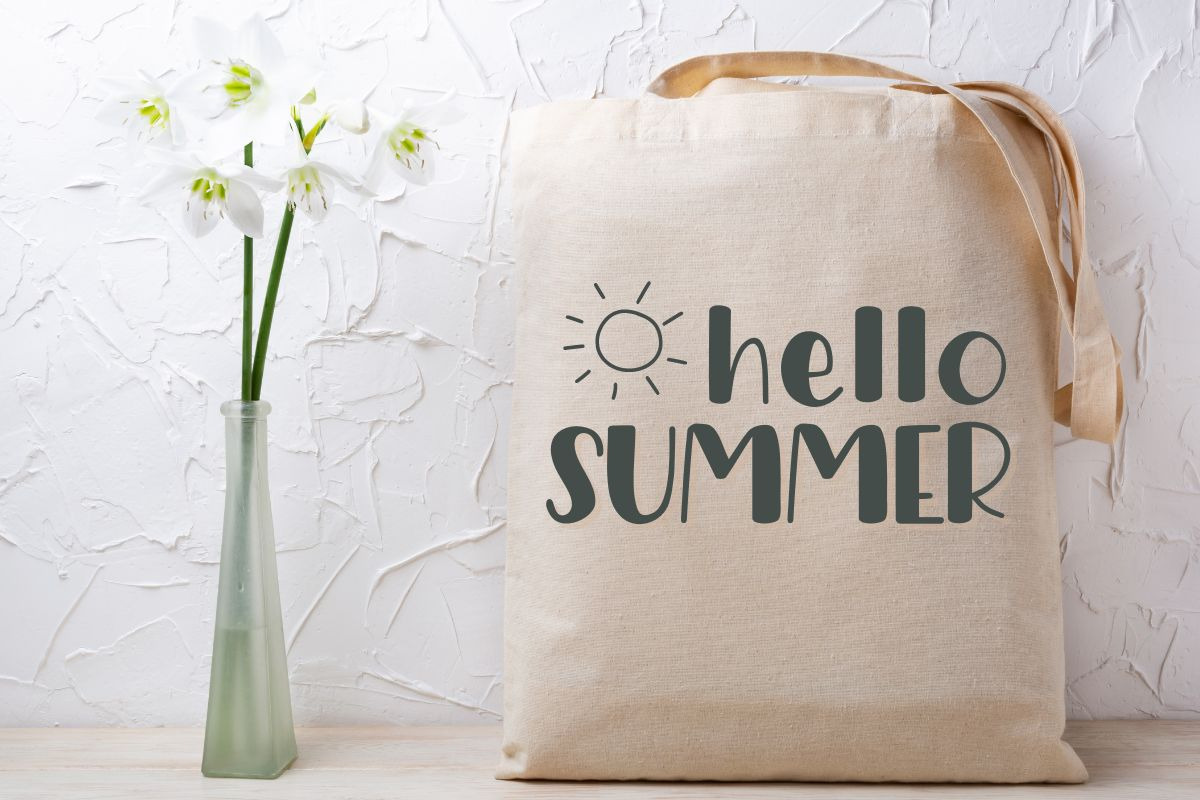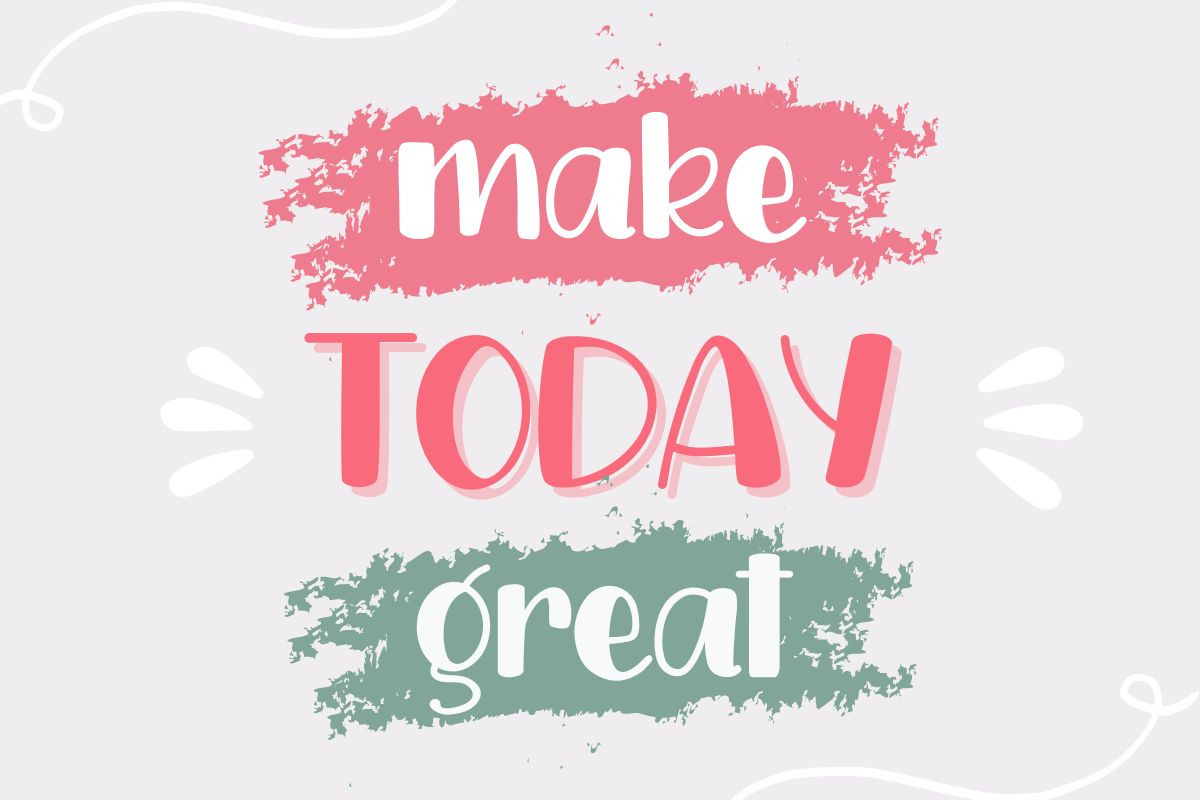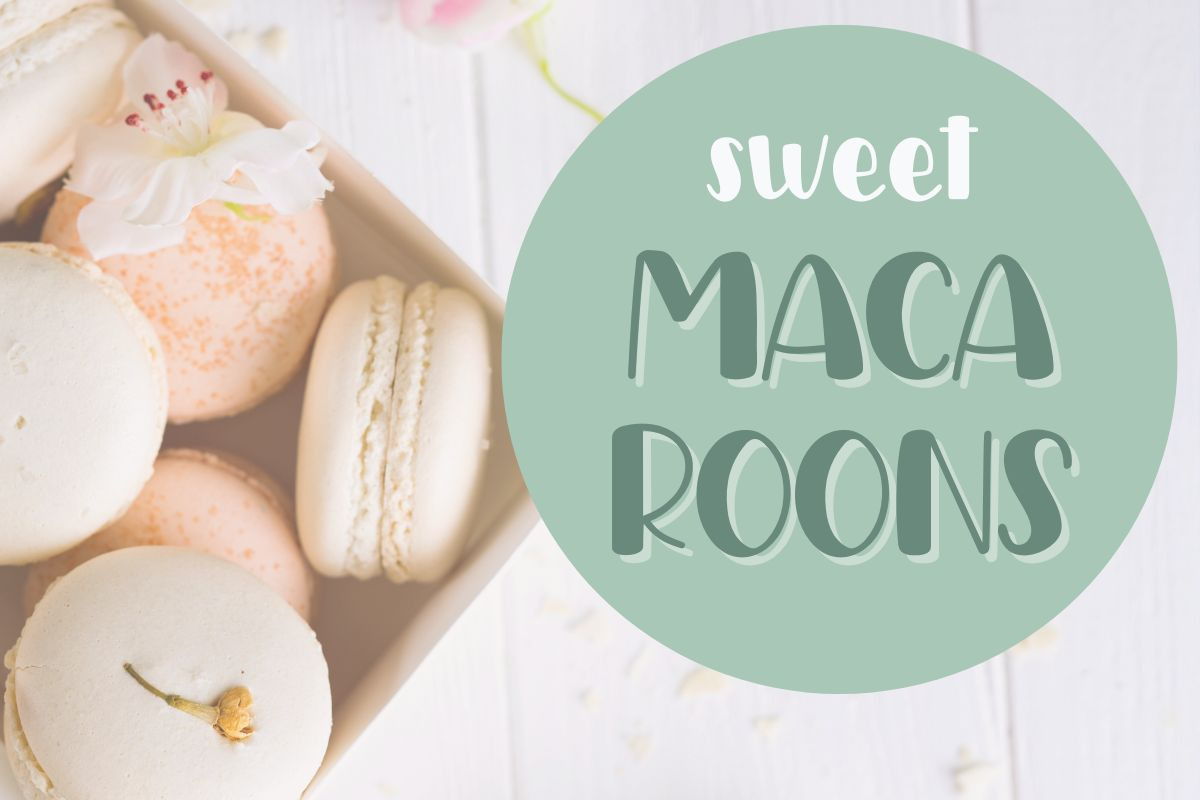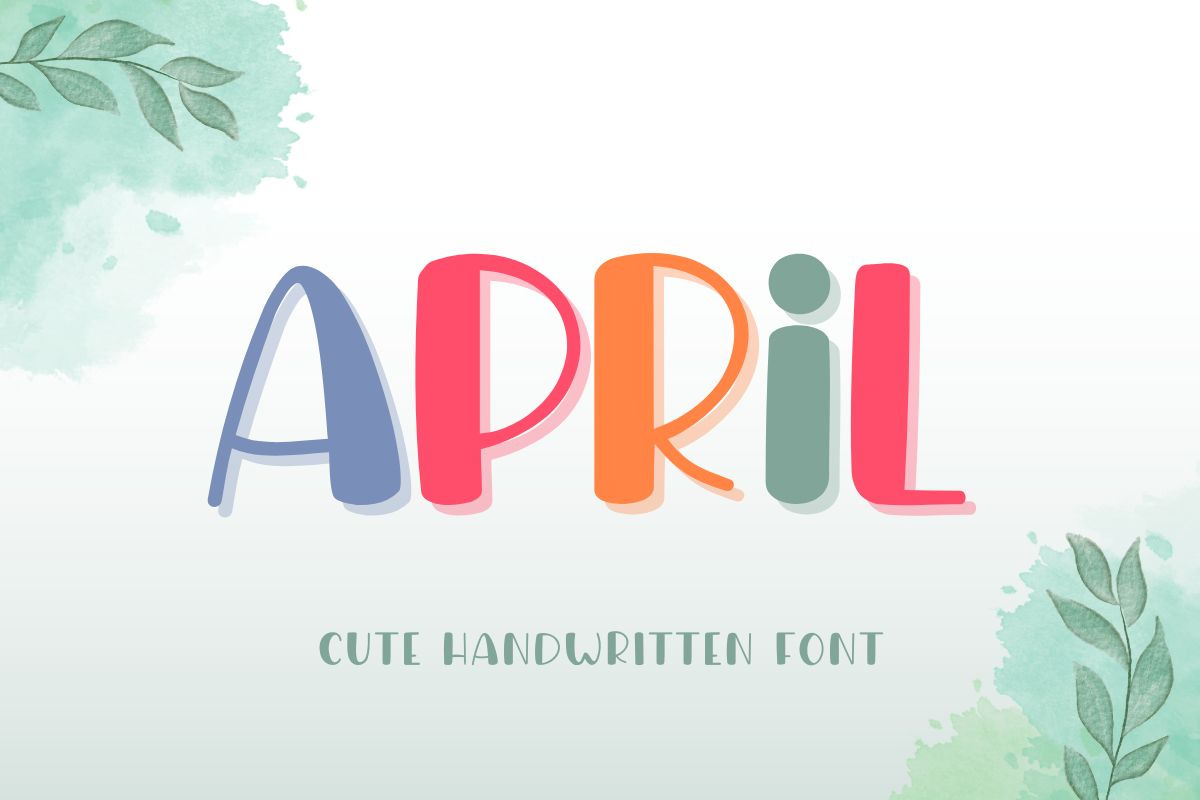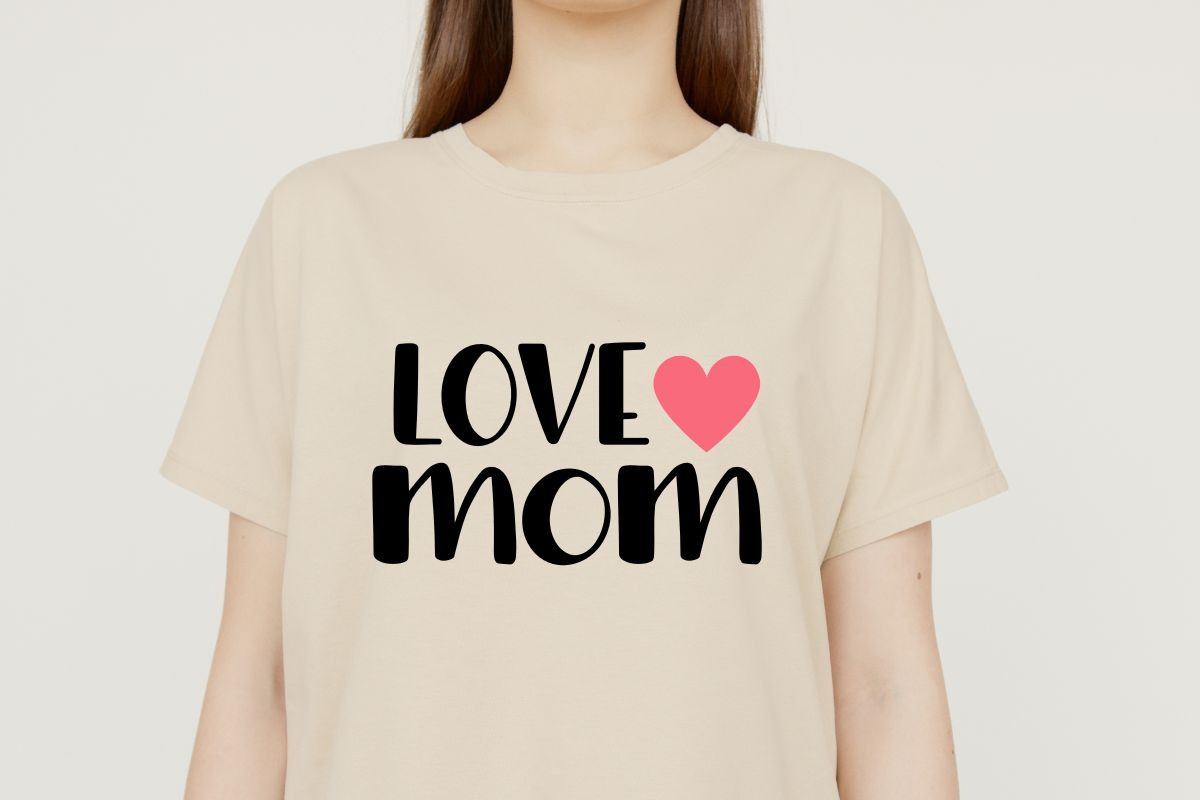
April Font | Handwriting Font
April is a cute and friendly handwritten font. Add it to your crafty ideas and you will love the outcome! Perfect for creating a wide variety of new designs to match products such as banners, content, mugs, cards, shirts, stationery, social media posts, and more!